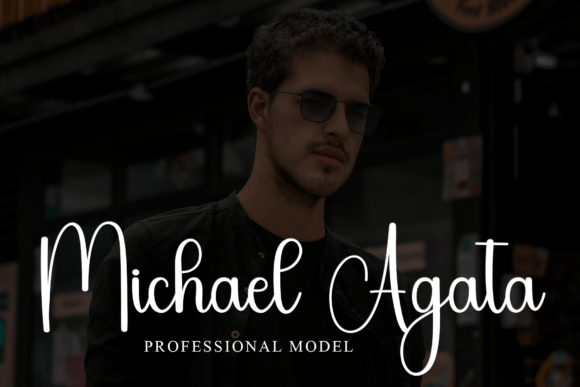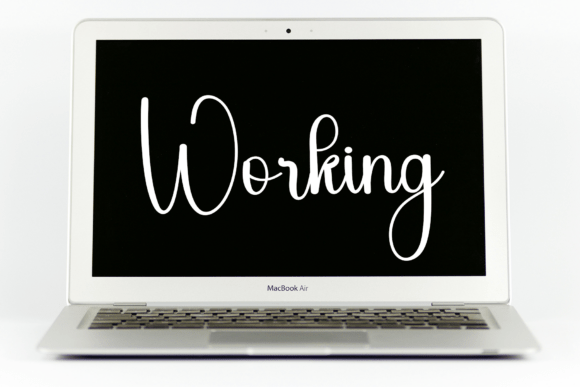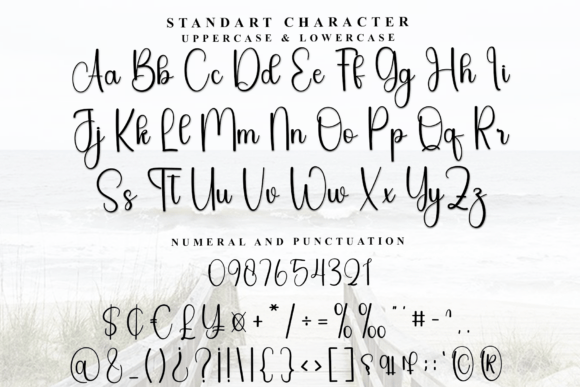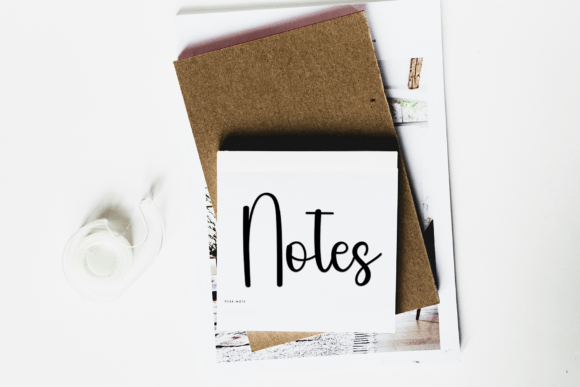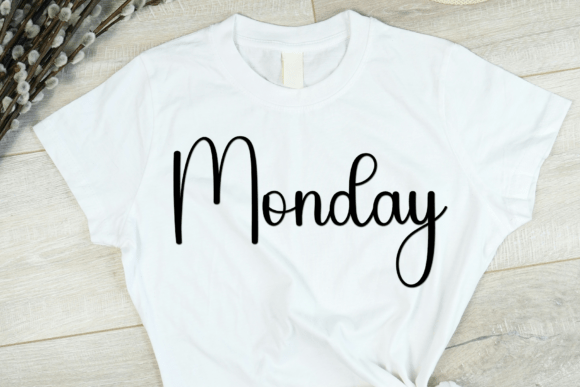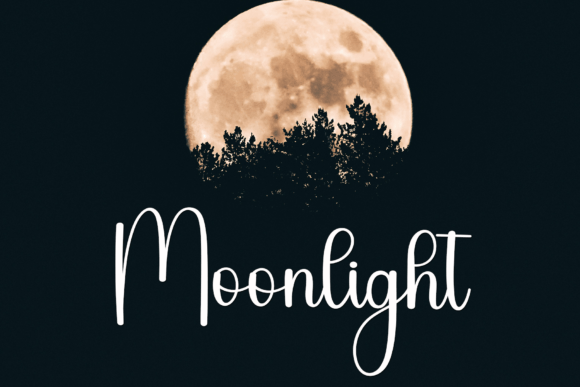
The Angry Daily Font: A Friendly Twist for Your Creative Projects
Have you ever been in the middle of a design project, and suddenly, you’re stuck on finding the perfect font? I recall a particularly frustrating experience while working on a client’s social media graphics. The design was almost complete, but the font just wasn’t right. It was too formal, too boring, or just didn’t capture the playful vibe the client wanted. That’s when I stumbled upon the Angry Daily font, and it was love at first sight! 💕
A Personal Review: What I Love About Angry Daily
The Angry Daily font has quickly become one of my go-to choices for a variety of projects. Here’s what I love about it:
- ✨ Warm and Friendly Aesthetic: The round, playful strokes of Angry Daily exude warmth and friendliness, making it perfect for personal projects, invitations, and social media graphics.
- ✅ Charming, Hand-Drawn Look: The font’s charming, hand-drawn aesthetic adds a fun and unique touch to any design, setting it apart from more generic fonts.
While Angry Daily is an excellent font, there are a few minor quirks to be aware of:
- 🤔 Limited Formality: As a casual and creative font, Angry Daily might not be the best choice for projects requiring a high level of formality, such as corporate reports or academic papers.
- ⚠️ Legibility at Small Sizes: While the font is generally legible, it may become a bit tricky to read at very small sizes. It’s best used at larger sizes, such as headings or titles.
One of the exciting aspects of Angry Daily is its support for OpenType features. This allows you to access a range of glyphs and stylistic alternates to customize your text. For example, you can use:
- Ligatures: Combine letters for a more artistic look.
- Stylistic Sets: Alternate character designs to add more personality to your text.
- Glyphs: Access additional characters, such as icons or swashes, to enhance your design.
The Designer Inspiration Behind Angry Daily
Angry Daily was created with the intention of bringing a friendly and approachable feel to design projects. The designer aimed to craft a font that would be both creative and casual, making it perfect for personal and professional use. While the actual design process and inspiration might be shrouded in mystery, it’s clear that Angry Daily has captured the hearts of many designers and creative hobbyists.
| What is the Angry Daily font best used for? | Angry Daily is perfect for personal projects, invitations, social media graphics, and any design that requires a friendly and approachable feel. |
| Is Angry Daily suitable for formal projects? | No, Angry Daily is a casual and creative font. It’s best used for projects that don’t require a high level of formality. |
| Does Angry Daily support OpenType features? | Yes, Angry Daily comes with standard PUA Encoded glyphs and supports OpenType features like glyphs and stylistic alternates. |